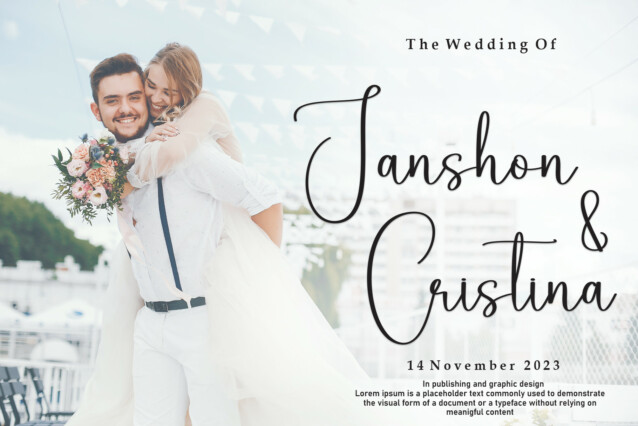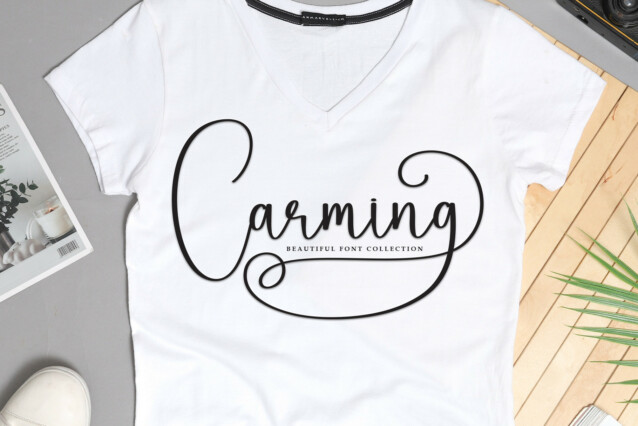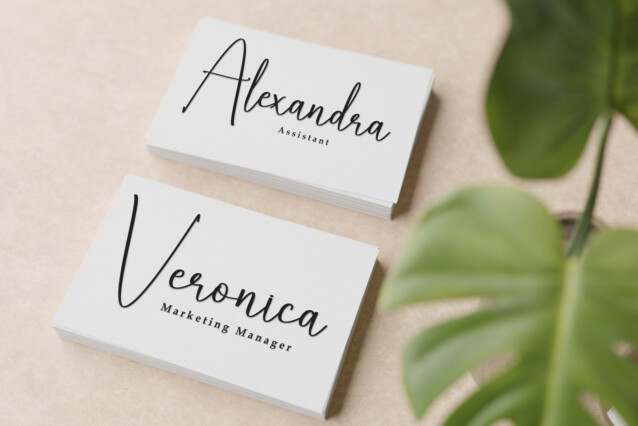
Teaching Script Font
Teaching Script Font is a delicate, elegant and flowing handwritten font. It has beautiful and well balanced characters and as a result, it matches a wide pool of designs. Add it to your most creative ideas and notice how it makes them come alive!